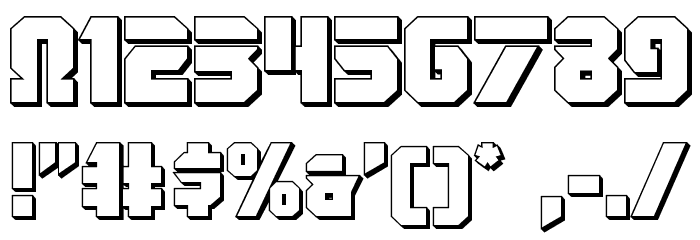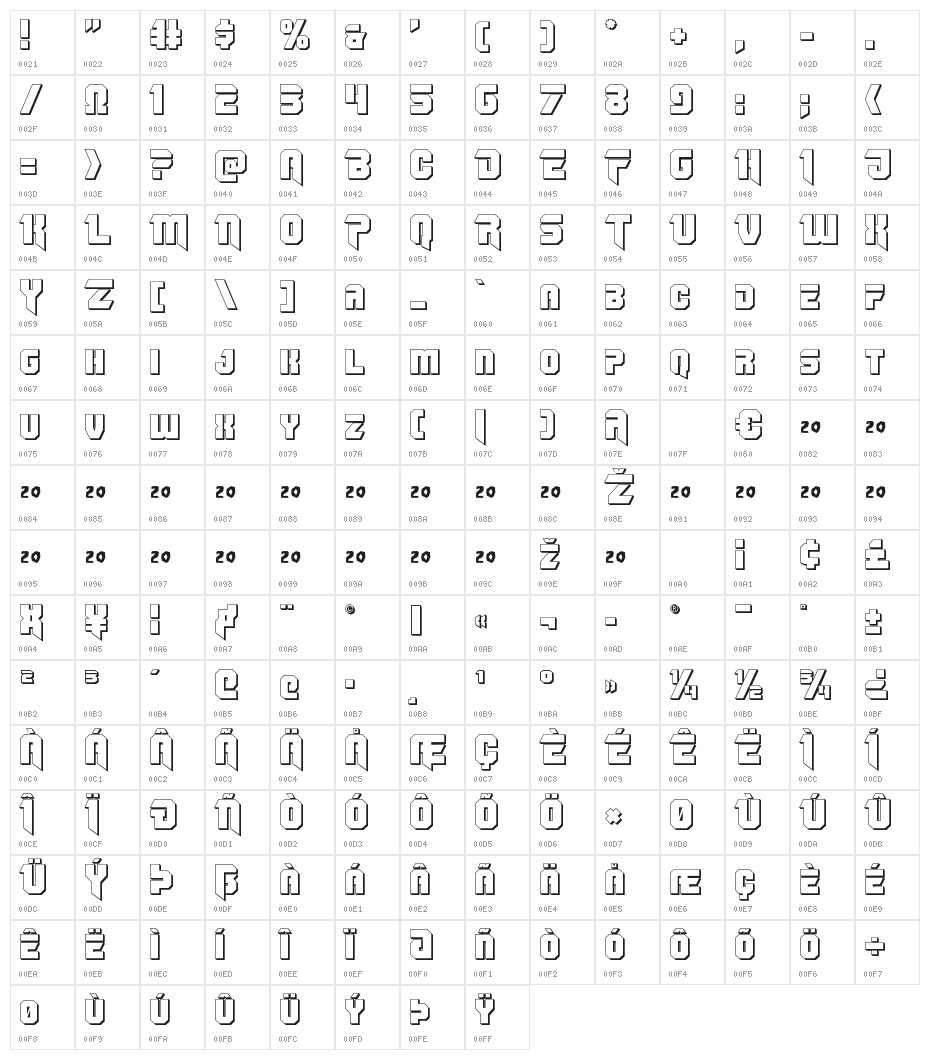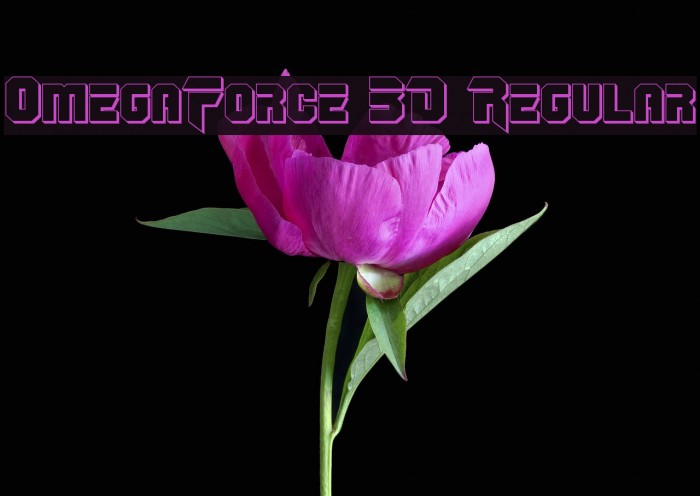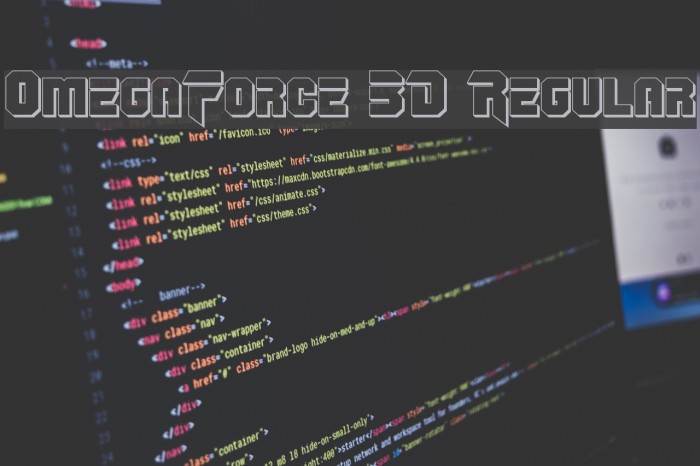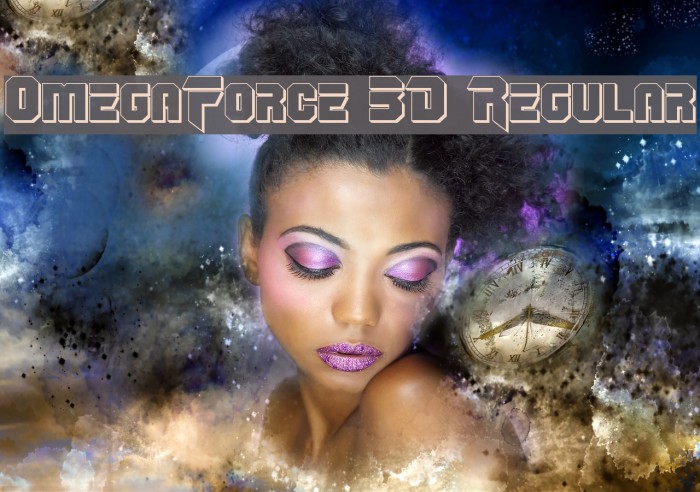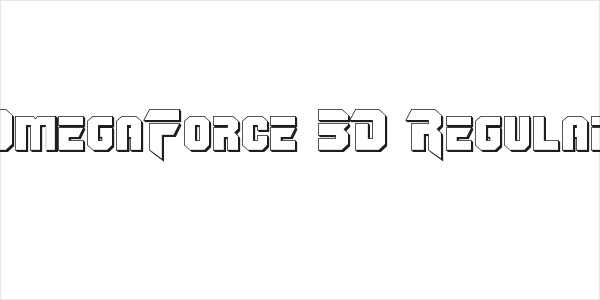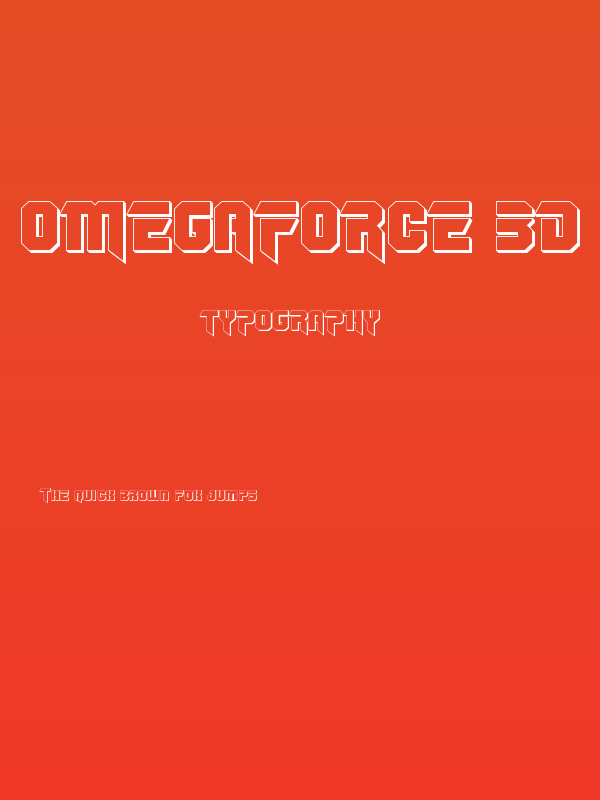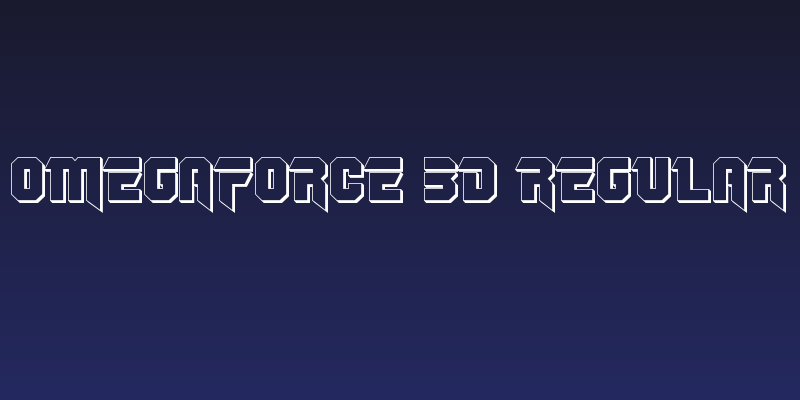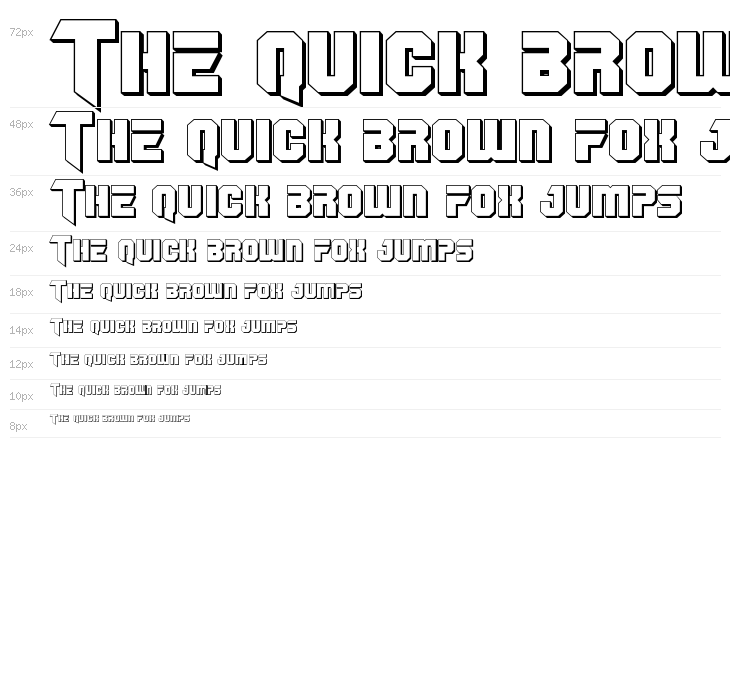
OmegaForce 3D Regular Font
OmegaForce 3D Regular Description
This font features a bold, three-dimensional design with a futuristic and geometric aesthetic. The characters are outlined, creating a striking visual effect that gives the impression of depth and solidity. The angular and blocky shapes are reminiscent of digital or sci-fi themes, making it ideal for projects that require a modern and edgy look. The uppercase letters are consistent in height, while the numbers and special characters maintain the same bold, outlined style. This font is perfect for attention-grabbing headlines, posters, and branding that aims to convey a sense of innovation and technology.